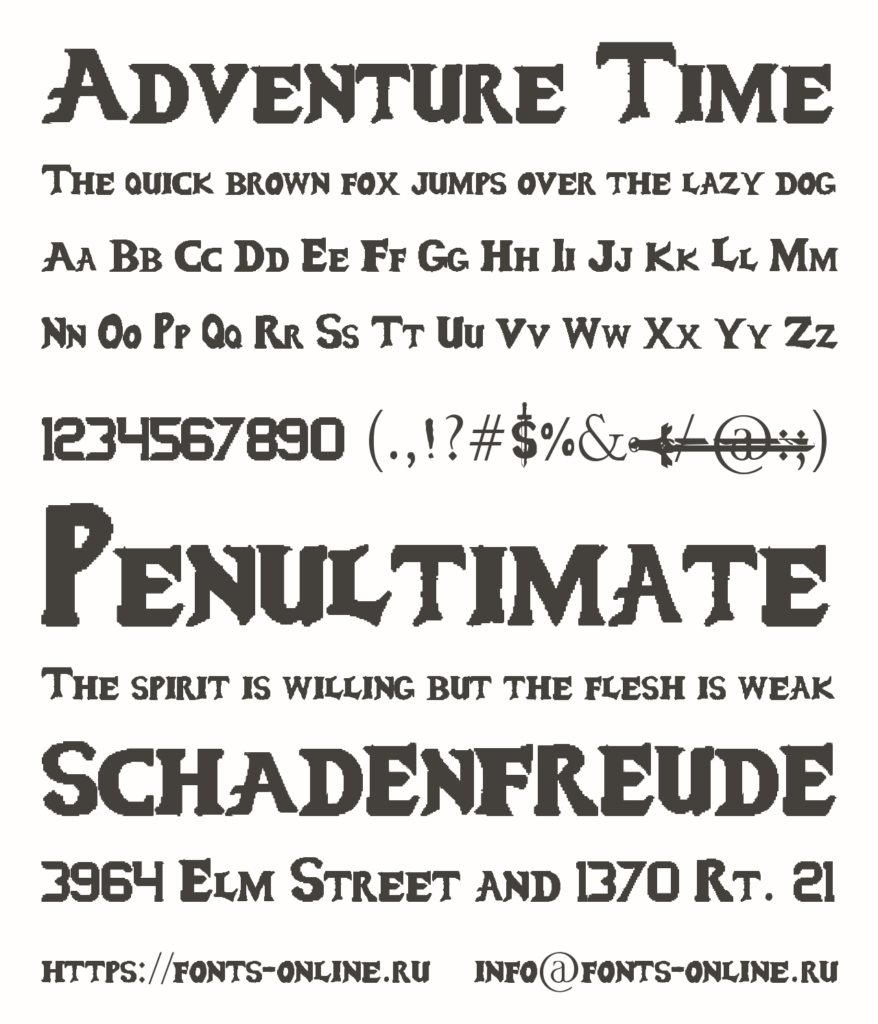
The Adventure Time font has subsequently evolved into a distinct style choice for many enthusiasts of the animated television show, Adventure Time. If you want a custom artwork for your design, a fan for this show, or you are interested in this show’s personality, the Adventure Time font can give a more fun, brave, and fantasy typeface to your choice.
What Is the Adventure Time Font?
The Adventure Time font, as the name suggests, is a fun cartoon typeface that suits the show Adventure Time. It looks pretty similar to the show’s title creations, with the peculiarities of the handwriting font, and it appears playful, having been drawn by hand. An entertaining and original typeface was used, derived from rounded characters with non-uniform shapes that correspond to the fantasy world of the series.
Primarily utilized in the curation of fancy art, designing devices, accessories, and making optimized logos intended to give off the spirit of youthful energy and adventure. The Adventure Time font is more or less an elaborate, giant, and typically stylized capital stroke, which makes it ideal for both on-screen and in print.
Features of Adventure Time Font:
The Adventure Time font has several standout features that make it popular among designers:
- Playful and Whimsical Design: Its fun, cartoonish design with uneven, rounded edges and exaggerated letterforms mirrors the eccentric style of the show.
- Bold and Eye-Catching: The chunky, bold appearance makes it ideal for grabbing attention in titles, posters, and other designs.
- Cartoonish Aesthetic: True to the show’s nature, the font has a strong cartoonish feel, making it perfect for projects targeting younger audiences or fans of the show.
- Simple Yet Distinctive: The clean, simple design ensures readability in both large and small text, making it versatile for different applications.
- All-Caps Design: The all-caps style maintains a uniform look, ensuring consistency across various design layouts.
Applications of Adventure Time Font:
The Adventure Time font is highly versatile and can be applied in various creative projects, including:
- Fan Art and Merchandising: Ideal for posters, t-shirts, stickers, and other fan-based merchandise, capturing the essence of the show.
- Branding and Logos: Perfect for creating fun, imaginative logos, especially for brands targeting children or young adults.
- Event Posters and Flyers: Its bold and attention-grabbing style makes it great for designing event posters and flyers, particularly for events targeting a younger audience.
- Social Media Graphics: Commonly used in social media posts, especially by fans or those creating content related to cartoons or animation.
- Comic and Illustration Projects: A popular choice for comic strips, graphic novels, and illustration work, adding a whimsical touch to storytelling projects.
4. Grinched
Although styled after The Grinch, this playful typeface also carries the hand-drawn, quirky look seen in Adventure Time.
5. Kingthings-petrock
A decorative, medieval serif font perfect for fantasy-themed headings.
6. Grobold
Used in many cartoon shows and games, Grobold is fun, rounded, and bold—great for youthful, energetic designs.
Conclusion: Adventure Time Font
This font is playful, bold, and whimsical, thus making the Adventure Time font something exciting and fitting for the animated show. In this way, the product is highly adaptable to different creative concepts, including fan art and merchandise, branding, and event posters. Adventurous and creative as it is, the Adventure Time font is characterized by its legibility and cartoon-like appearance of its text characters.